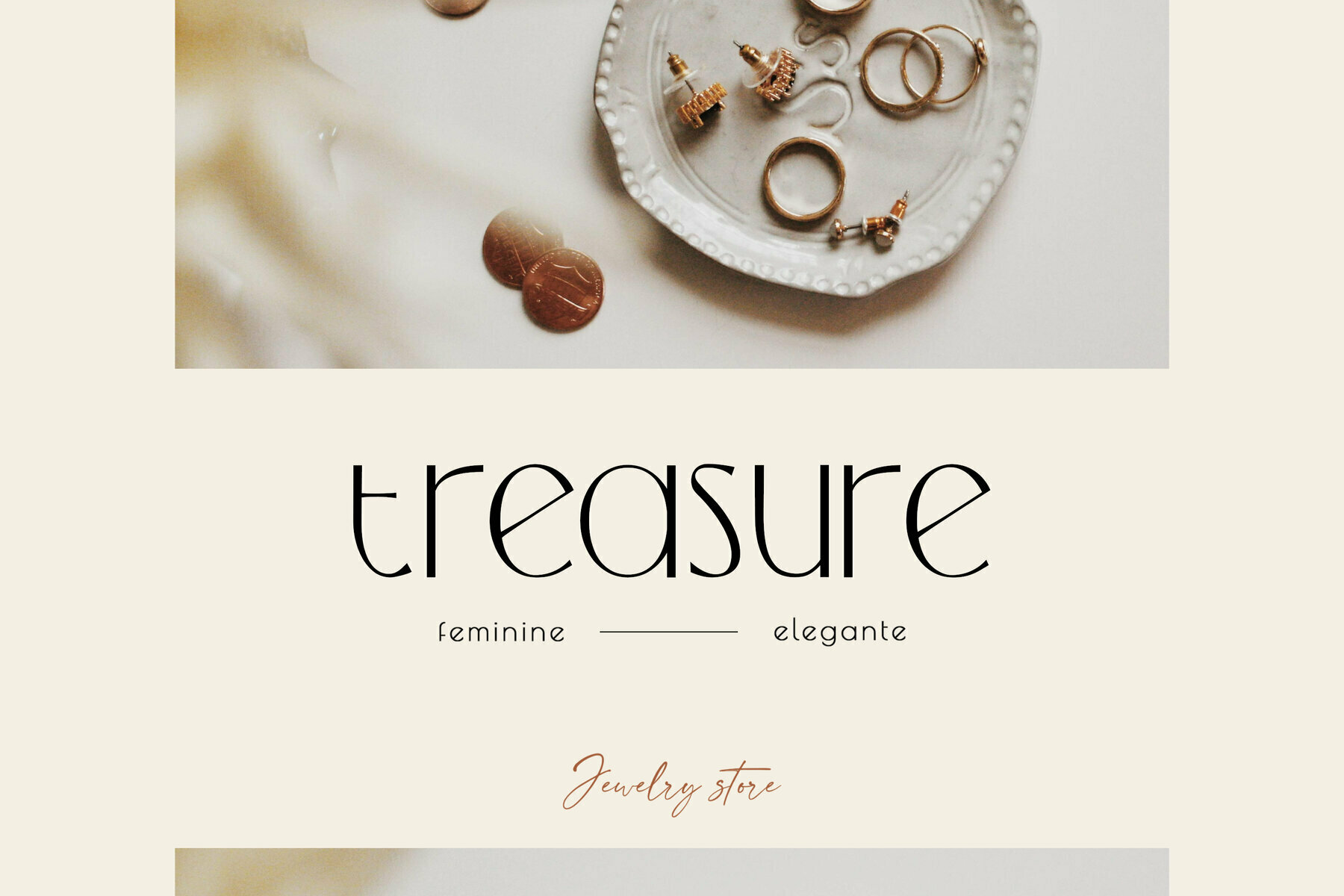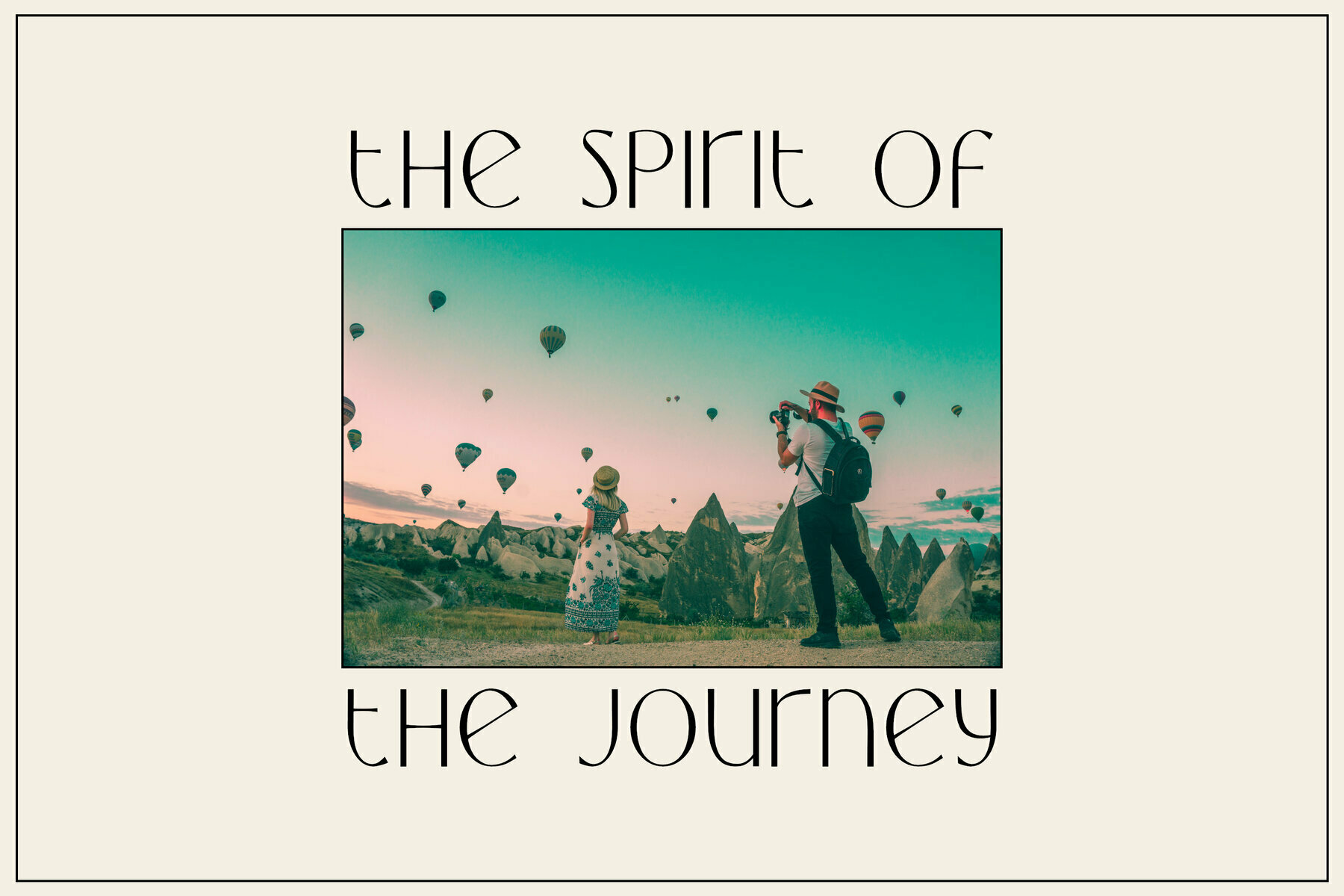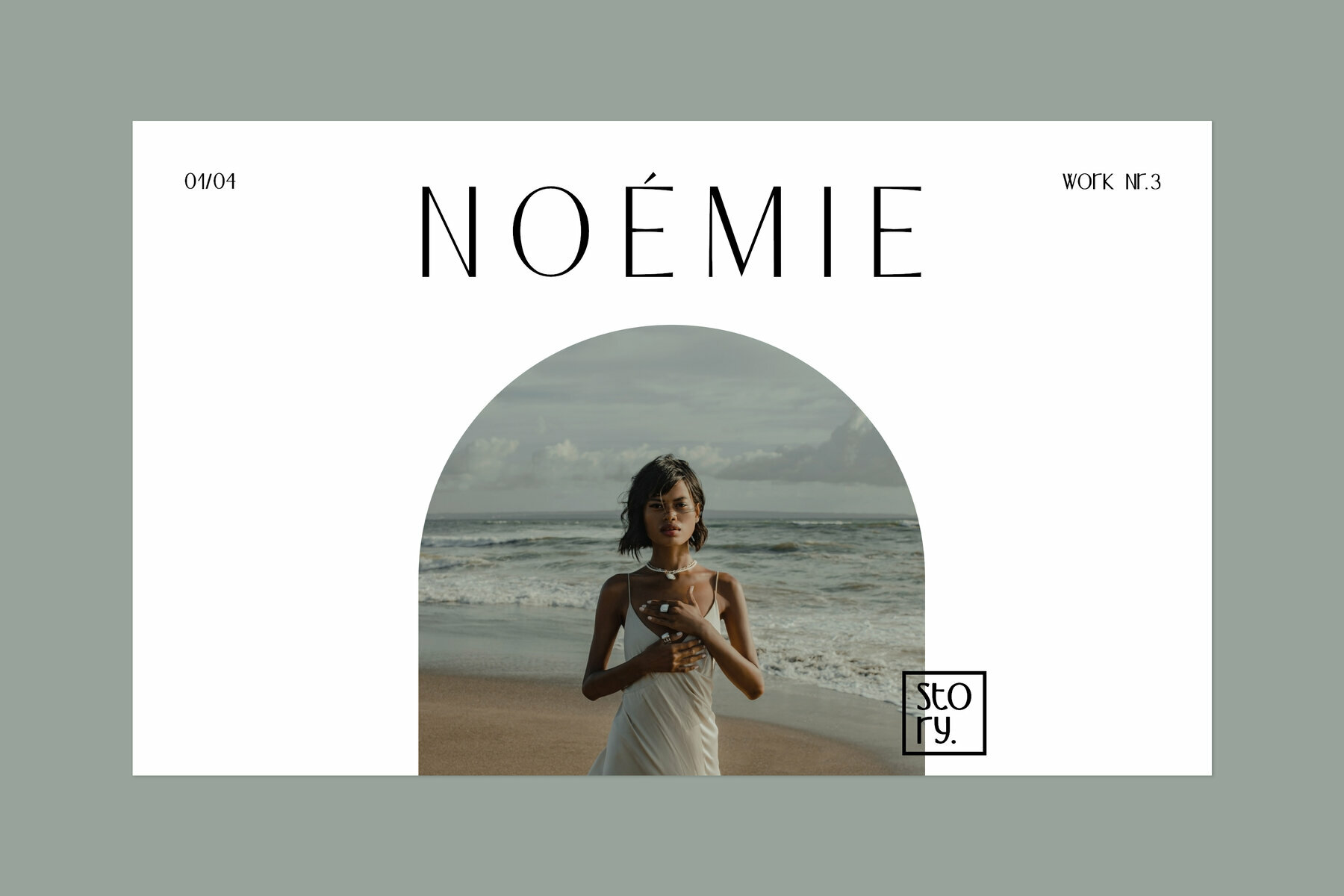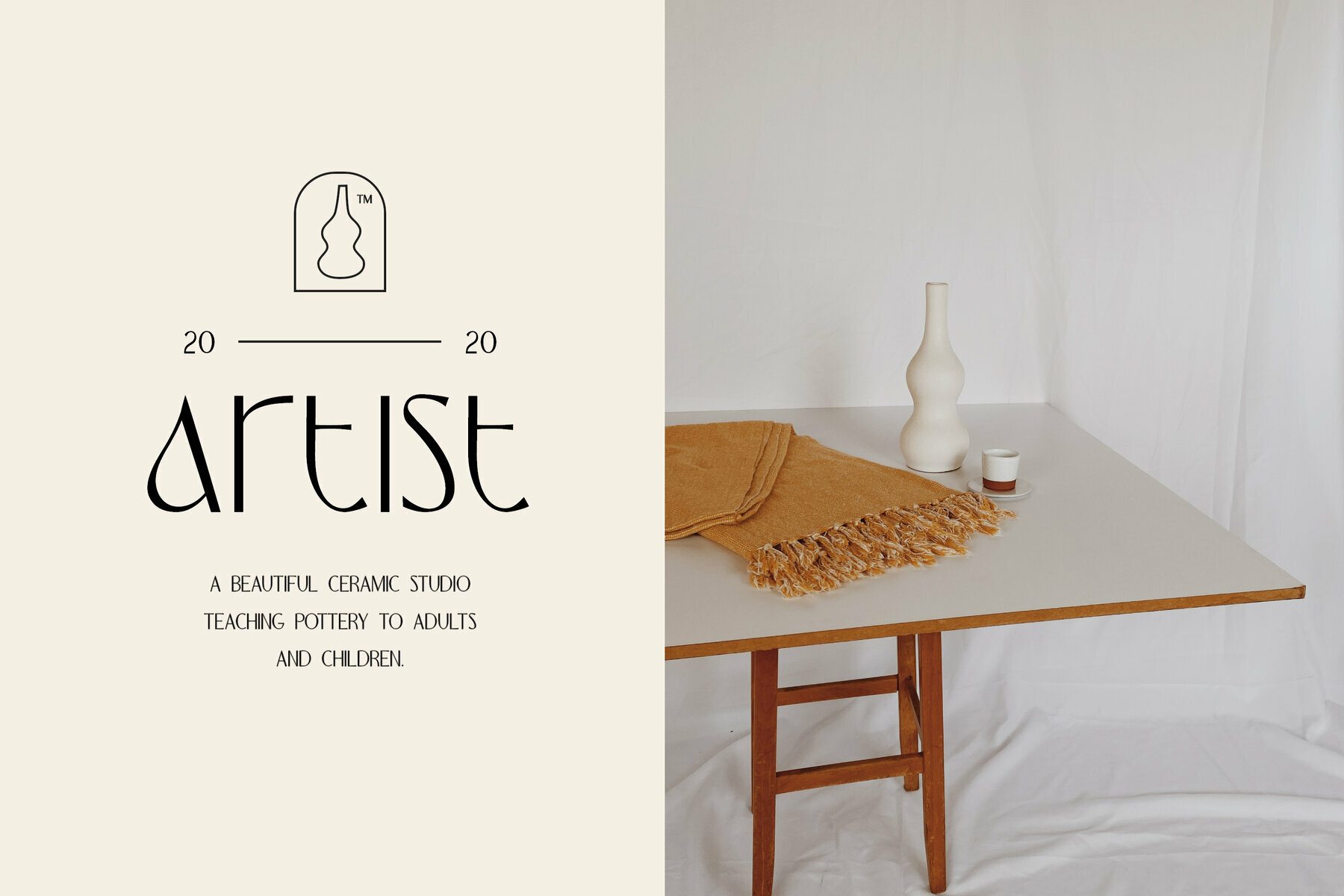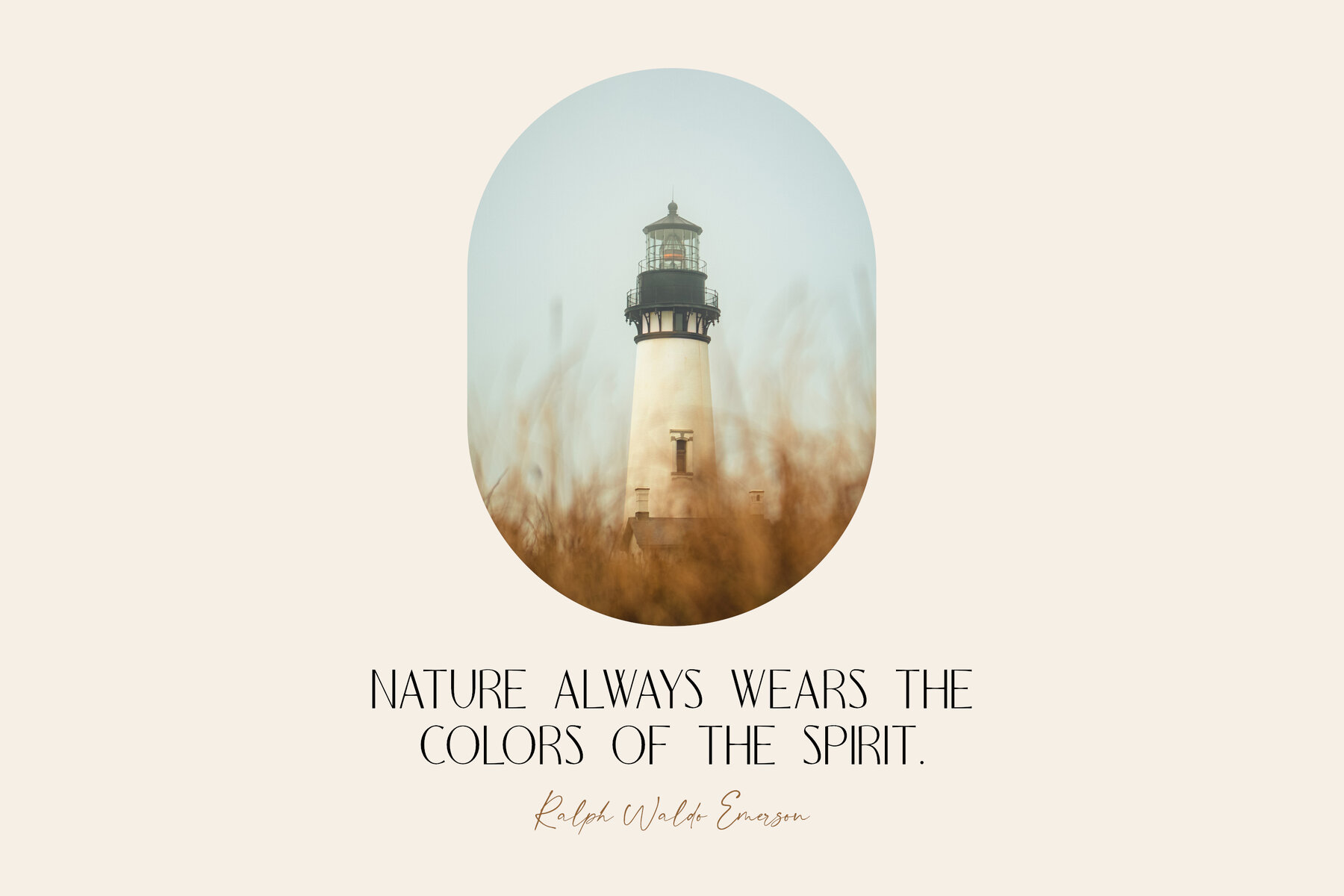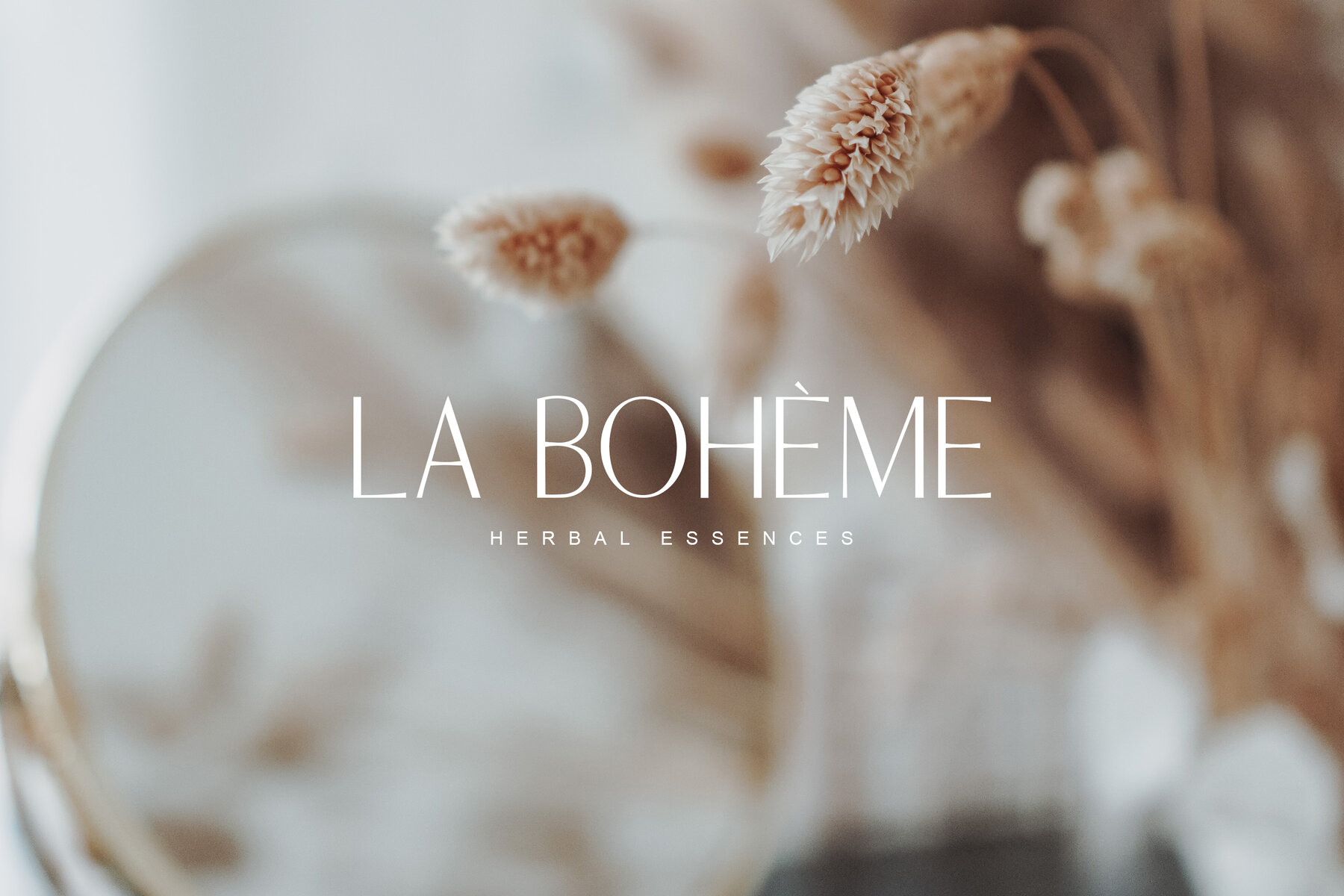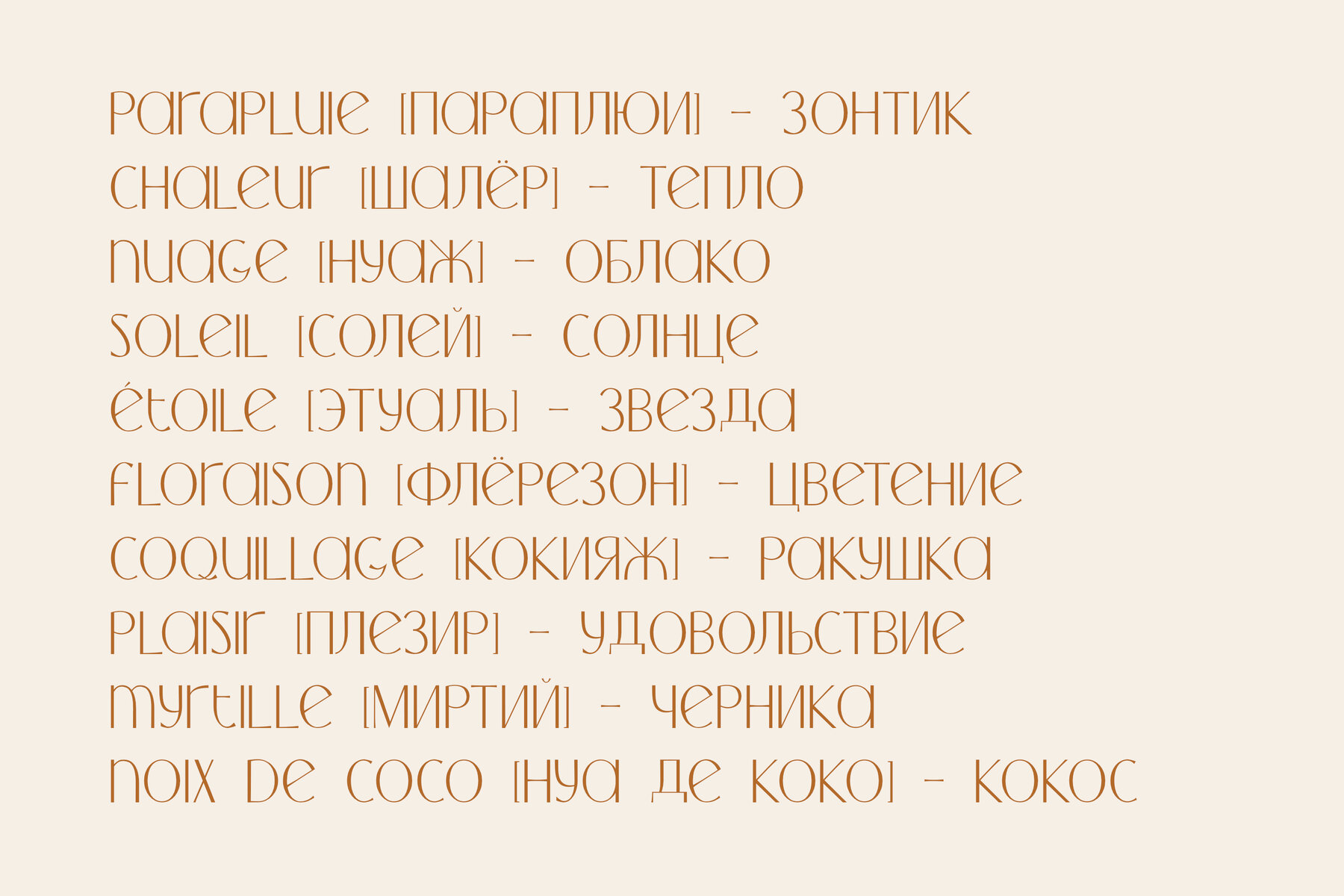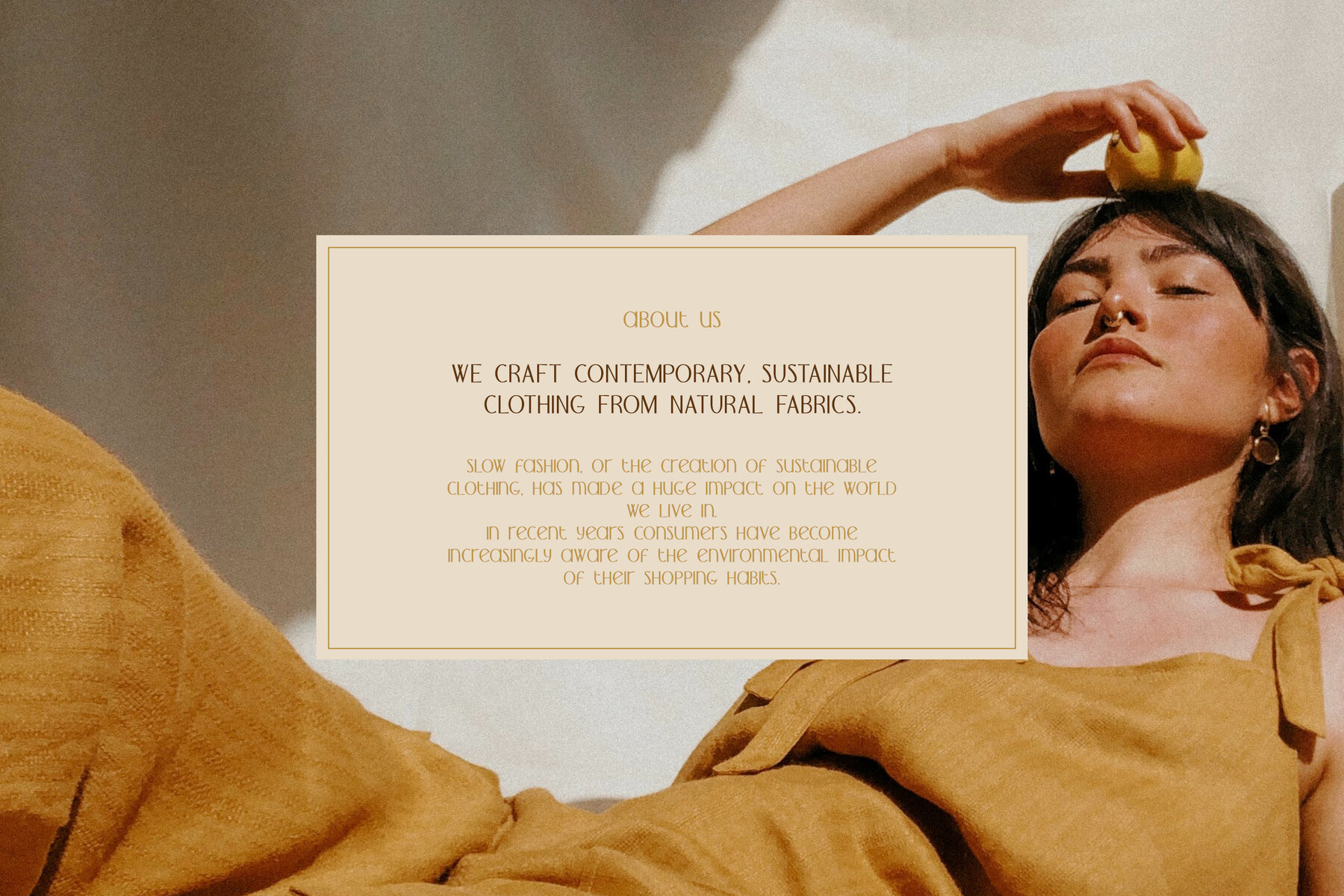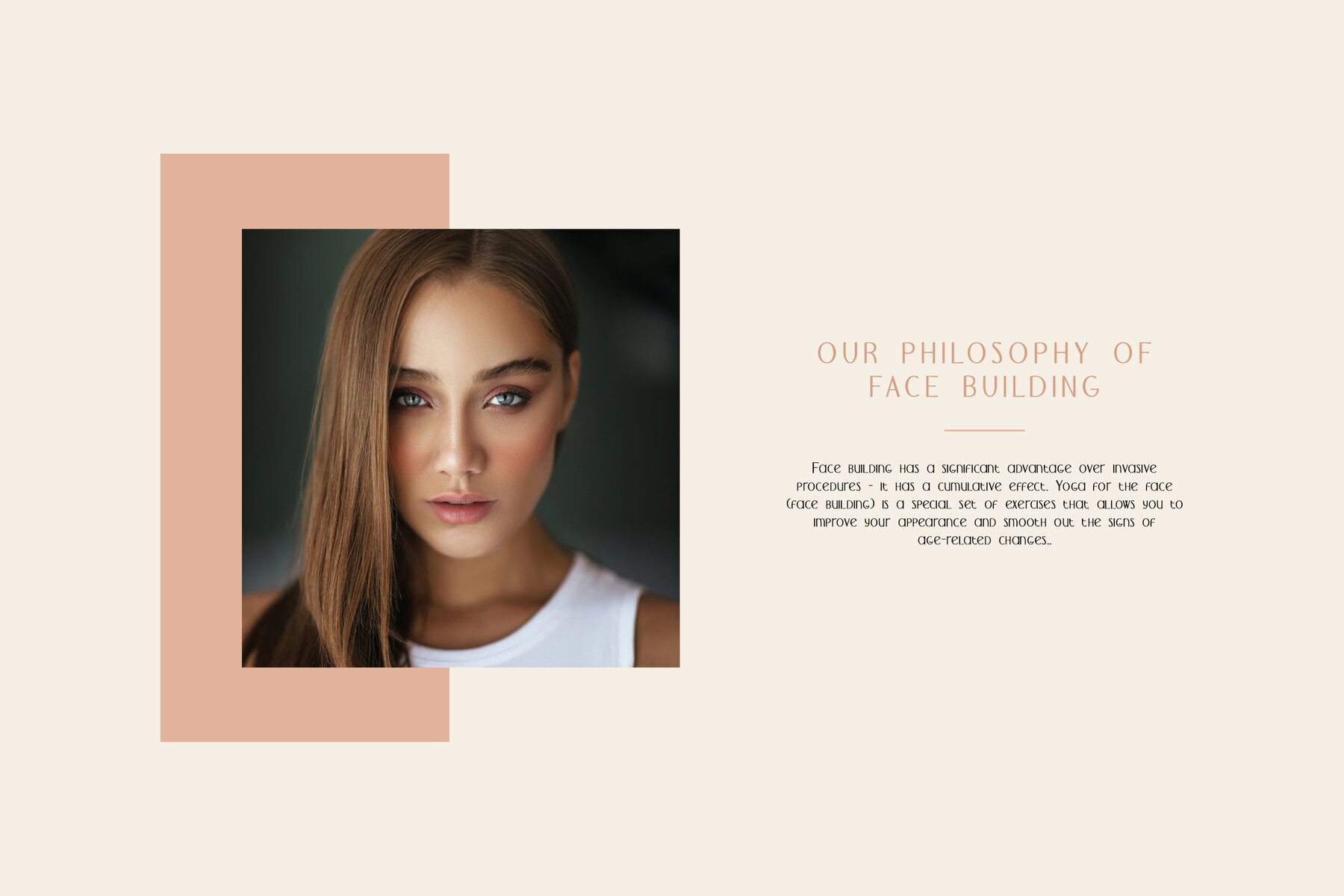
Artisa Font
Artisa Regular
Artisa is an elegant, antique typeface with a luxurious vibe. This neat font can contribute to the modern and fashionable appeal of the brand. Uppercase and lowercase letters are the same height.